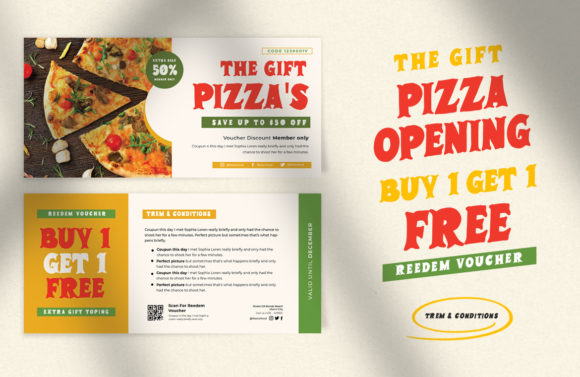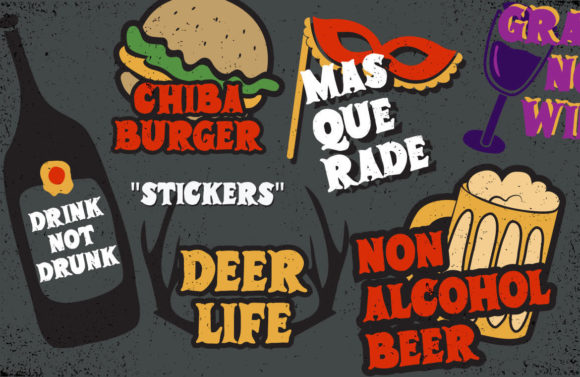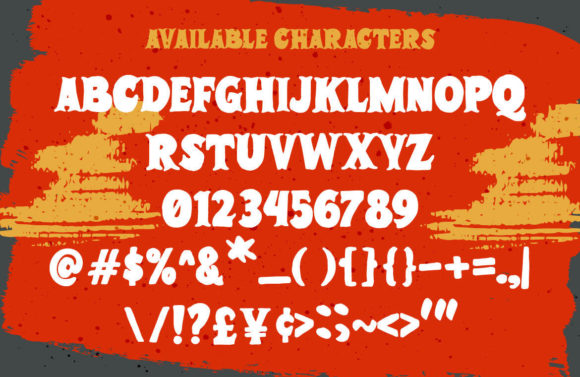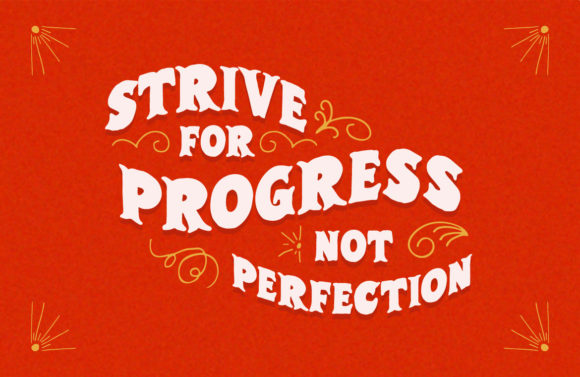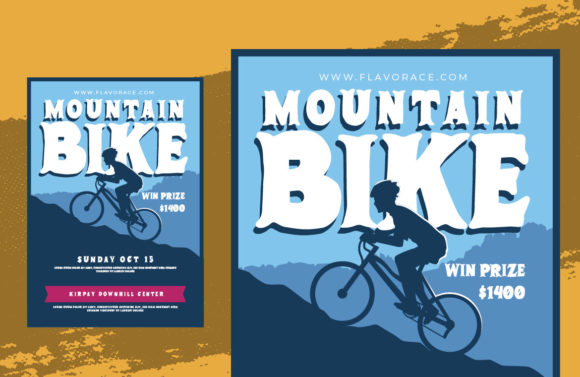
Introduction to Gravel Bold Font
Gravel Bold is an assertive, thick lettered and rough textured display font.
Whether you are using it for cartoon-related designs, childrenโs games, quotes, titles, brand names, book covers, posters, or just any creation that requires a touch of beauty, this font is a great choice .